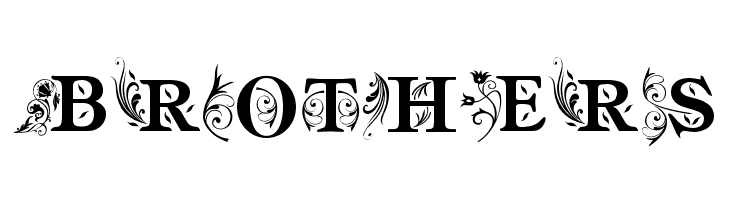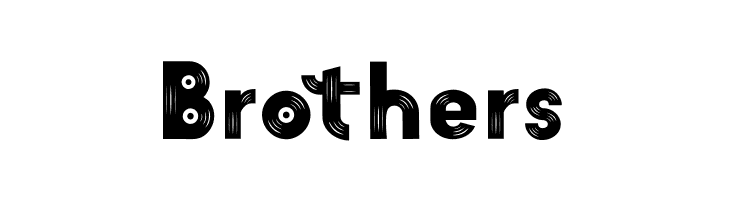
A sophisticated script font with flowing, interconnected letters and ornate swashes.
A flowing, cursive font with elegant, connected strokes.
An elegant, decorative script font with floral embellishments.
A graceful script font with fluid, cursive strokes and elegant curves.
A flowing, cursive script font with elegant loops and swashes.
A bold, expressive handwritten font with smooth curves and a modern touch.
A graceful script font with flowing, connected strokes and elegant flourishes.
A graceful script font with flowing, cursive strokes and elegant swashes.
A playful and elegant script font with flowing, connected letterforms.
A bold, high-contrast font with a modern, geometric style.
A graceful calligraphy-style script font with elegant, flowing letters.
A playful, handwritten font with rounded, casual letterforms.
A playful, handwritten font with bold, rounded characters and whimsical details.
A bold, playful handwritten font with an energetic style.
A classic serif font with modern elegance and clear readability.
A bold serif font with strong, authoritative strokes and classic elegance.
An elegant serif font with a classic italic style and moderate contrast.
A lively, expressive handwritten font with elegant cursive strokes.
A playful, casual handwritten font with an organic flow.
A dynamic and expressive font blending script and display styles.
A bold, decorative font with a vinyl record-inspired design.
An ornate, decorative font with floral embellishments on uppercase letters.
A bold, vintage slab serif typeface with a typewriter-inspired design.
A modern, geometric font with clean lines and rounded edges.
An elegant and flowing script font with graceful curves and delicate strokes.
A flowing, cursive script with elegant, sweeping strokes and decorative flourishes.
An ornate and decorative typeface with intricate detailing and flourishes.
A decorative and artistic font with intricate details and whimsical embellishments.
An elegant inline serif font with swirling serifs and decorative details.
An elegant and decorative font with intricate inline details and unique flourishes.
Elegant cursive script with a handwritten feel.
An elegant and ornate script font with flowing cursive letters.
An elegant, flowing script font with sophisticated curves and loops.